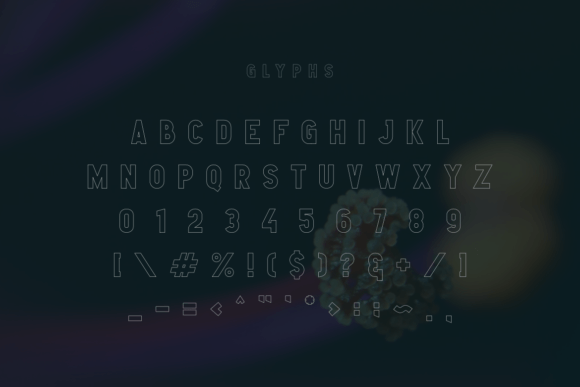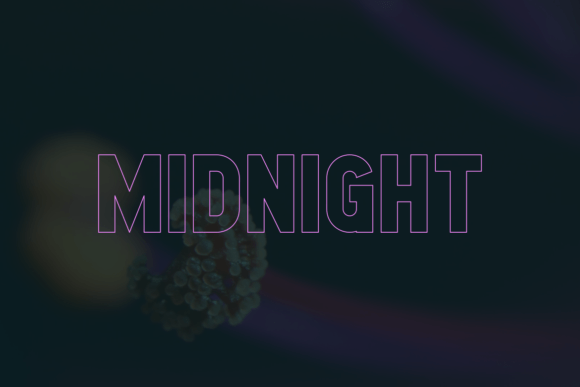
Introduction to Khela Outline Font
Khela is a bold type font suitable for magazine covers, books such as dictionaries, or writing that is placed on posters, billboards, and banners.
Fonts like this can also be used for technology, sports, gym, and many more .
Key Features of Khela Outline Font